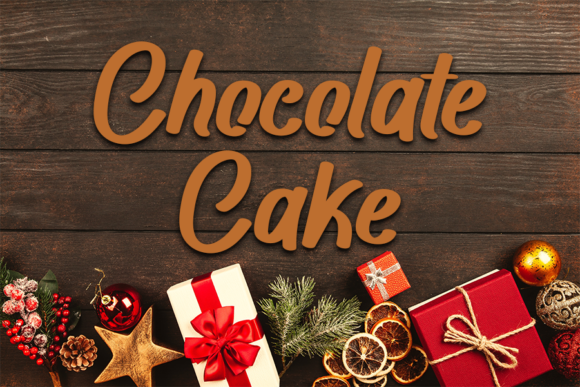
Step into a world of pure delight and captivating charm with Chocolate Cake Font, the enchanting handwritten font that will transport your designs to new heights of elegance and allure. Its free-flowing strokes, reminiscent of a master calligrapher's hand, evoke a sense of timeless beauty and heartfelt emotion.
Indulge in the boundless creativity that awaits you with Chocolate Cake Font. Its versatile nature seamlessly adapts to a myriad of design styles, from whimsical and playful to sophisticated and refined. Whether you're crafting wedding invitations that exude romance, designing logos that demand attention, or creating social media graphics that captivate audiences, Chocolate Cake Font is your perfect companion.
Experience the power of emotions as Chocolate Cake Font transforms your words into visual masterpieces. Its meticulously crafted characters dance across the screen, evoking a symphony of feelings that resonate with your audience. From joy and warmth to love and longing, Chocolate Cake Font breathes life into your designs, leaving a lasting impression that lingers in the hearts of all who behold it.
As you explore the depths of Chocolate Cake Font's versatility, you'll discover a treasure trove of possibilities. Its elegant script style adds a touch of timeless sophistication to branding and marketing materials, while its playful charm brings life to invitations, greeting cards, and personal projects. Let your imagination run wild as you uncover the endless applications of this captivating font.